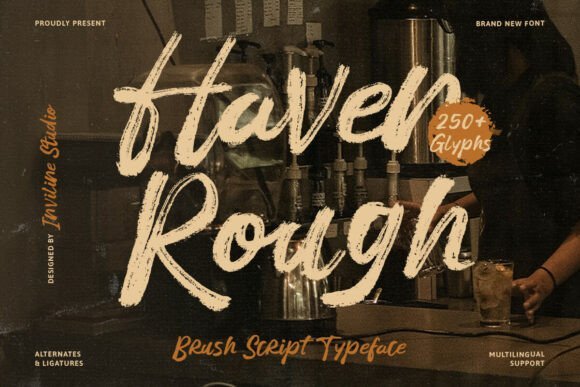
Unveiling the Soul of Haven Rough Font
As you sit at your desk, pencil in hand, trying to capture the essence of a rustic cafe’s branding or the packaging of a quaint bakery, you can’t help but feel the struggle. Your attempts at recreating the imperfect, handmade charm often fall short, leaving you with a polished but soulless design. This is where Haven Rough Font steps in, a brush script typeface that breathes life into your creations.
Crafted by the skilled hands of Inviline Studio, Haven Rough Font is a masterclass in artisanal typography. With its genuine, wild brush strokes and authentic hand-painted ambiance, this font embodies the spirit of handmade craftsmanship. Whether you’re designing a logo, poster, or packaging, Haven Rough Font adds a distinct personality, soul, and much-sought-after handmade feel to your work, setting you apart from the crowd.
- Font Style: Rough, handwritten font with a unique and expressive feel.
- Unique Characteristics: Features a distressed, worn look with subtle texture and imperfections, giving it a vintage feel.
Haven Rough Font Review
As a designer, I’m always on the lookout for unique and expressive fonts that can elevate my projects. The Haven Rough Font caught my attention with its rugged, hand-drawn feel, and I’m excited to share my honest review.
- The font’s texture and imperfections add a charming, human touch that’s perfect for creative and artistic projects.
- The font’s bold weight makes it ideal for headings and titles, while the lighter weights work well for body text.
- The font’s rough edges and subtle irregularities create a sense of movement and energy, making it perfect for dynamic and fast-paced projects.
- The font’s rough texture can make it difficult to read at small sizes or in low-light environments.
- The font’s imperfections may not be suitable for projects that require a more polished or corporate look.
Overall, I’m impressed with the Haven Rough Font’s unique character and expressive qualities. While it may not be suitable for every project, it’s a great choice for designers looking to add some personality and flair to their work.
The Haven Rough Font is ideal for creating a distressed, vintage look in your designs. Use it for:
Distressed text overlays in photography
Handwritten-style quotes and captions
Grungy, edgy logos and branding materials